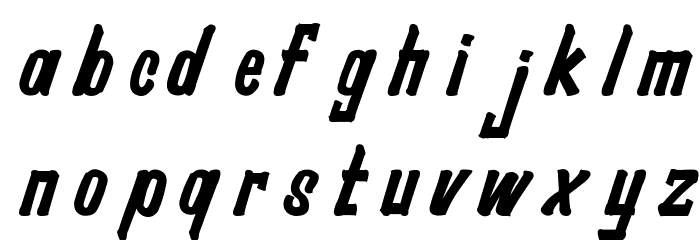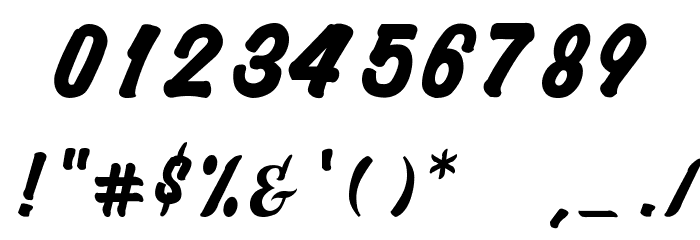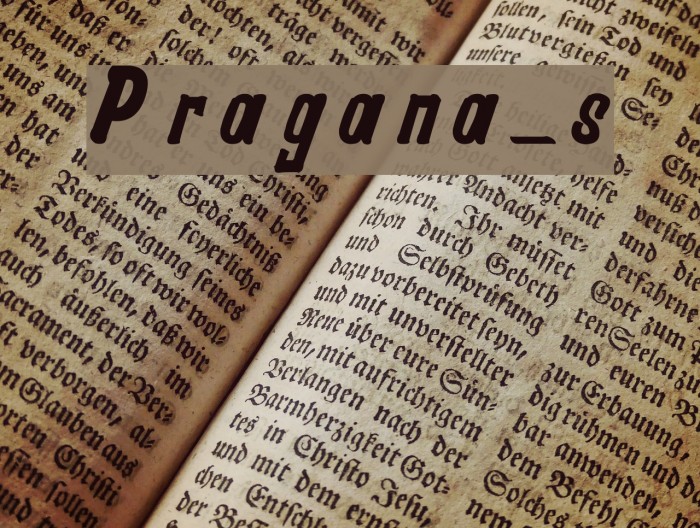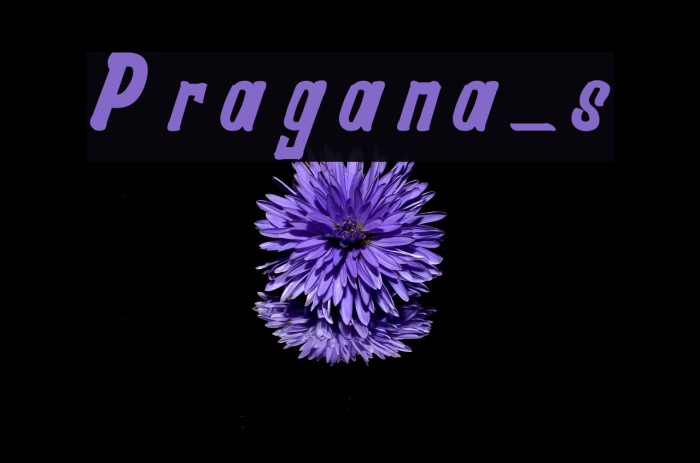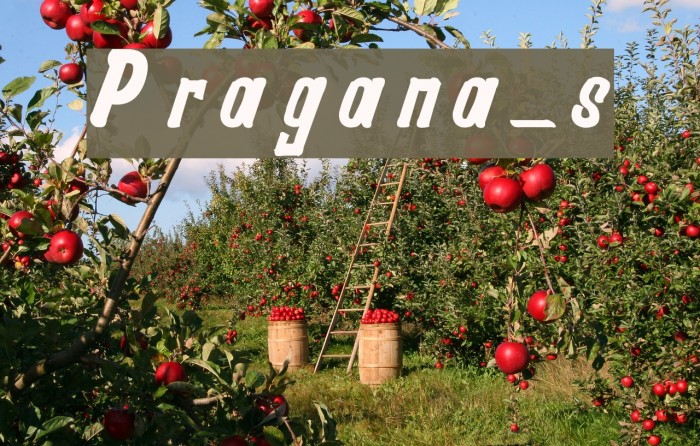
Pragana-s Font
This font features a bold and dynamic style with a strong presence. The characters are slightly slanted, giving a sense of motion and energy. The uppercase letters are robust and impactful, while the lowercase letters maintain a consistent flow. Numbers are bold and clear, ensuring readability. Special characters are well-integrated, matching the overall aesthetic. The font's design is reminiscent of vintage signage, with a modern twist, making it versatile for various creative applications.
A bold, dynamic font with a vintage yet modern flair, featuring slanted characters.
- Proposed Projects: Ideal for branding, poster design, and headlines where a strong, energetic presence is needed.
- Overall Style: Vintage